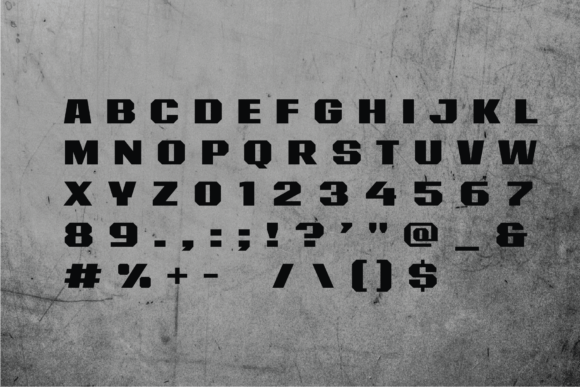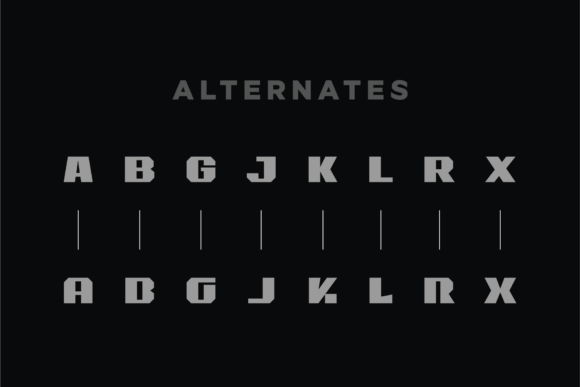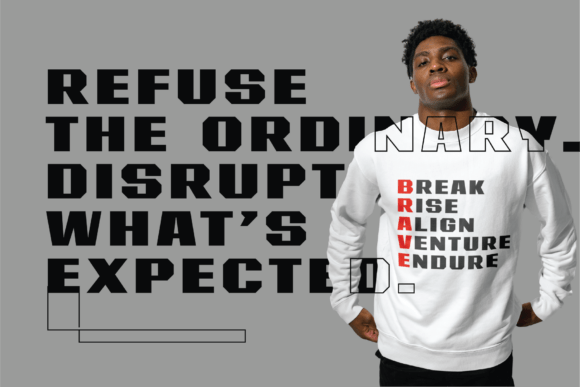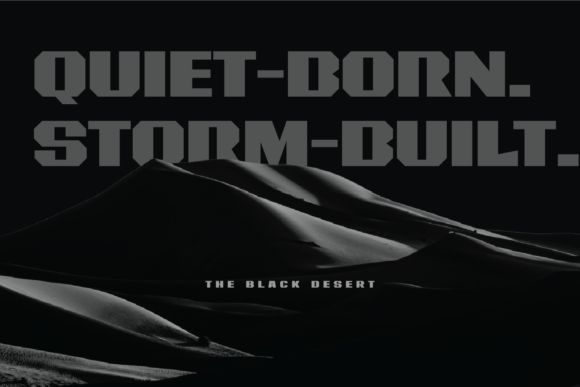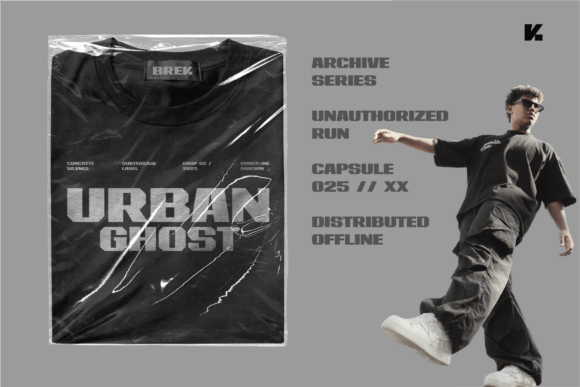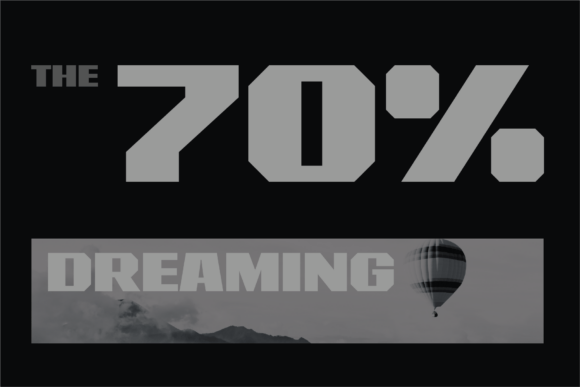
The Birth of a Bold Typography: Brek Font
Have you ever stared at a blank canvas, struggling to find the perfect font to convey the essence of your design? That’s where I was, until I stumbled upon Brek Font – a game-changing blocky sans serif font that has been a total game-changer for my creative projects. With its bold weight and strong geometric structure, Brek Font is the perfect tool for designers who want to make a statement.
Brek Font is designed to deliver maximum impact, making it ideal for headlines, logos, posters, and branding that demand attention. Its sharp, square letterforms and clean lines evoke a confident, industrial feel – perfect for tech, esports, streetwear, and futuristic design projects. Whether you’re working on a bold new campaign or rebranding your company, Brek Font is the perfect addition to your design arsenal.
Brek Font Key Features
• Font Family: Brek Font is a sans-serif font family.
• Size: The font family includes 12 styles, ranging from Extra Light to Extra Bold.
• Unique Characteristics: Brek Font features a modern, geometric design with clean lines and a minimalist aesthetic.
Brek Font Review
I recently had the chance to work with Brek Font, and here’s my honest take on it.
✨ Brek Font has a unique, modern feel that catches the eye. The designer has done a great job of creating a distinctive style that’s sure to stand out.
• ✨ It’s highly legible, making it perfect for body text and long passages of text.
• ✨ The font has a great balance of bold and light weights, allowing for a range of design possibilities.
• ✨ It’s highly versatile and can be used in a variety of design contexts, from digital interfaces to print materials.
⚠️ One of the main limitations of Brek Font is its limited language support. It’s primarily designed for Latin-based languages and may not be suitable for non-Latin scripts.
⚠️ Additionally, the font may not be suitable for very small or very large font sizes, as the letterforms may become distorted or difficult to read.
Brek Font is a solid choice for designers looking for a modern, unique font. While it has some limitations, it’s well-suited for a range of design projects and can add a touch of sophistication to any design. Overall, I’d give Brek Font 4 out of 5 stars.
* Use Brek Font for headings and titles to add a touch of sophistication.
* Experiment with different font sizes and colors to create visual hierarchy.
* Use Brek Font for titles and headings in your designs.
* Experiment with layer styles and effects to add depth and interest.
* Use Brek Font for headings and titles to add a touch of professionalism.
* Experiment with different font sizes and colors to create visual hierarchy.
Brek Font is ideal for:
* Branding and marketing materials.
* Designing titles and headings.
* Creating a sophisticated and modern look.
Alternatives to Brek Font for Designers
Montserrat is a sans-serif typeface designed by Julieta Ulanovsky. It’s a modern, geometric font that works well for digital interfaces and titles. Montserrat has a more geometric feel compared to Brek Font, making it a good choice for minimalist designs.
Open Sans is a popular sans-serif font designed by Steve Matteson. It’s highly legible and works well for body text, making it a great choice for long-form content. Compared to Brek Font, Open Sans is more neutral and won’t draw attention away from the content.
Lato is a sans-serif typeface designed by Łukasz Dziedzic. It’s a clean and modern font that works well for titles and headings. Lato has a more rounded feel compared to Brek Font, making it a good choice for designs that require a softer touch.
Inter is a sans-serif typeface designed by Rasmus Andersson. It’s a modern and highly legible font that works well for digital interfaces and body text. Inter has a more geometric feel compared to Brek Font, making it a good choice for designs that require a high level of readability.
Transform your travel experiences into a beautiful, one-of-a-kind journal using Brek Font.
Can I use Brek Font for print materials?
Yes, Brek Font is suitable for print materials, including business cards, brochures, and posters. However, it’s essential to check the font’s performance on different paper types and printing resolutions to ensure the best results. You may also consider using the font’s bold and italic weights for added visual impact.